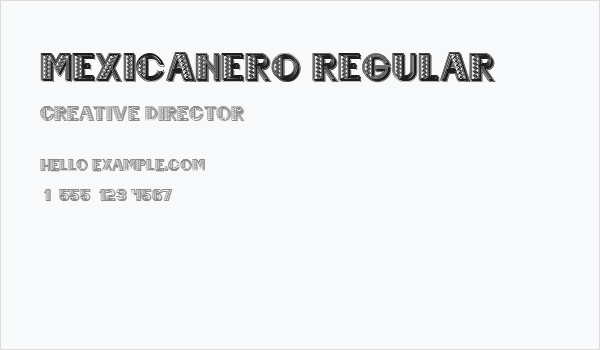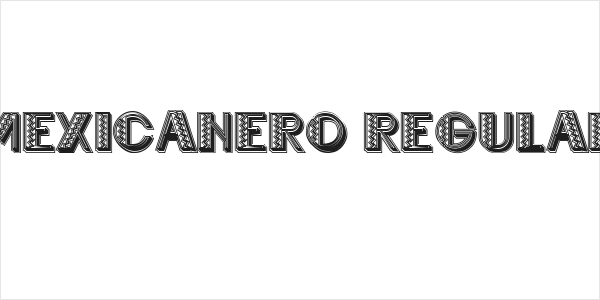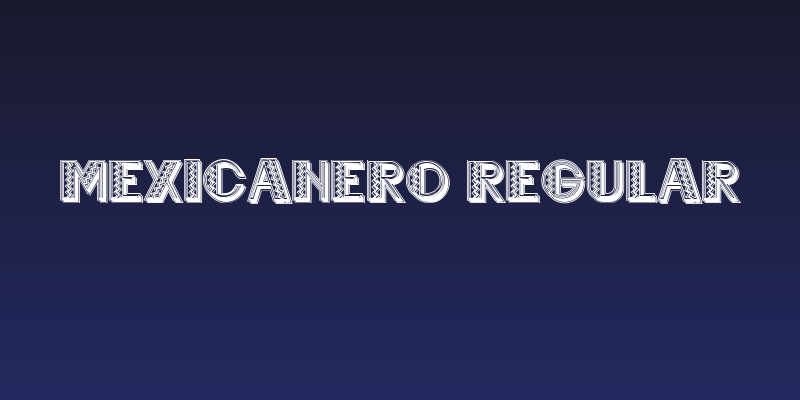
Mexicanero Regular Font
Mexicanero Regular Description
This font features a bold and decorative style with intricate patterns within each character. The letters are uppercase and have a strong, geometric presence, making them stand out. The design incorporates traditional motifs, giving it a cultural and artistic flair. The characters are outlined with a thick border, enhancing their visibility and impact. The numbers and special characters follow the same decorative theme, ensuring consistency across the font set. This font is ideal for projects that require a bold and artistic touch, capturing attention with its unique and detailed design.
| Proposed Projects | Ideal for cultural event posters, artistic branding, and decorative signage. |